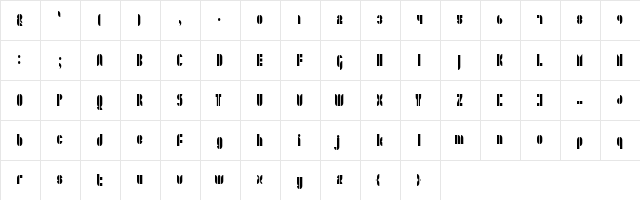
42Stencil Regular
Design Context for 42Stencil Typeface
42Stencil borrows the utilitarian aesthetic of stencil lettering, with its characteristic cutaways and no-frills construction lending an industrial edge.
A strong choice for packaging that needs edge, warehouse aesthetics, and rough-and-ready visual identities.
Pro Tip: Use 42Stencil at large sizes on packaging, posters, or apparel where the stencil cutaways read clearly. Avoid small sizes where those gaps become visual noise.